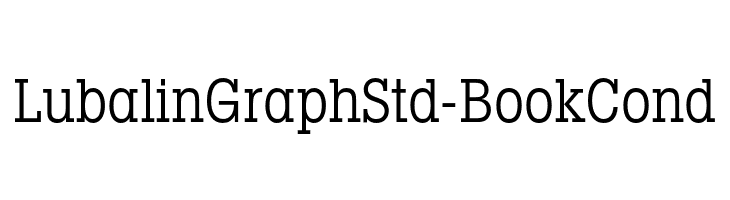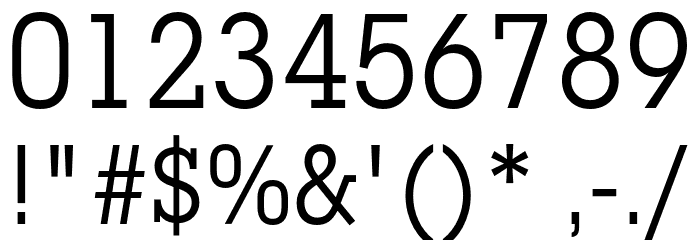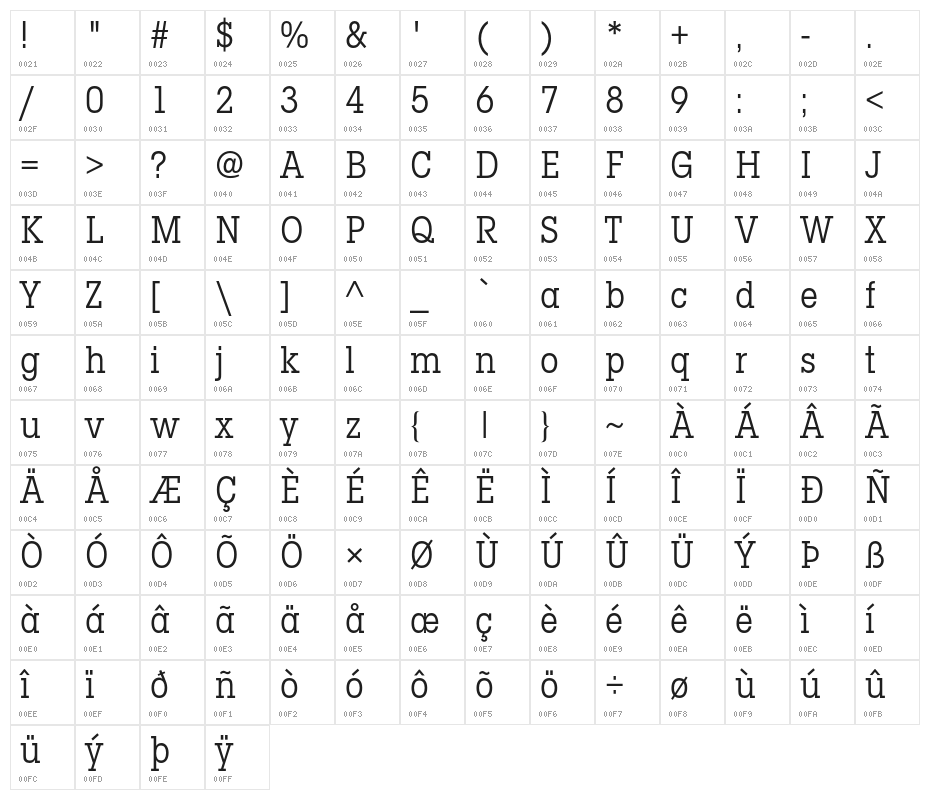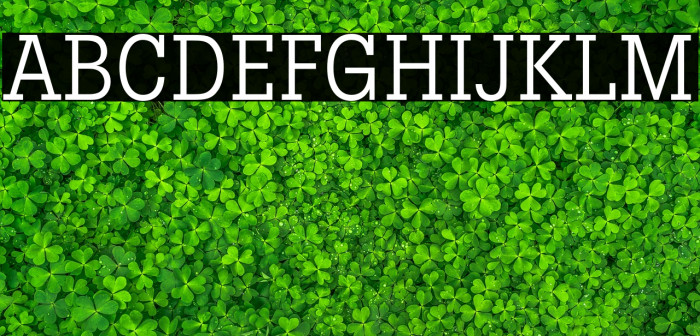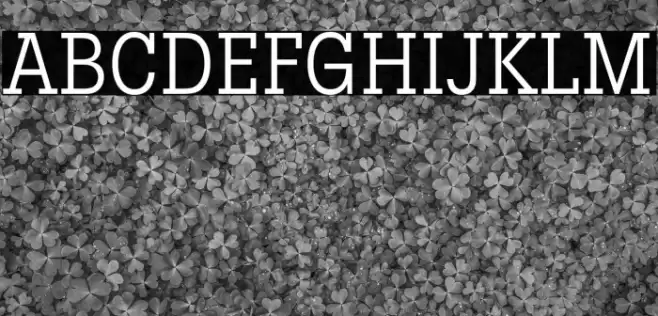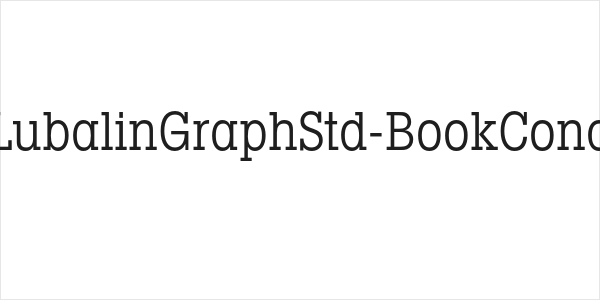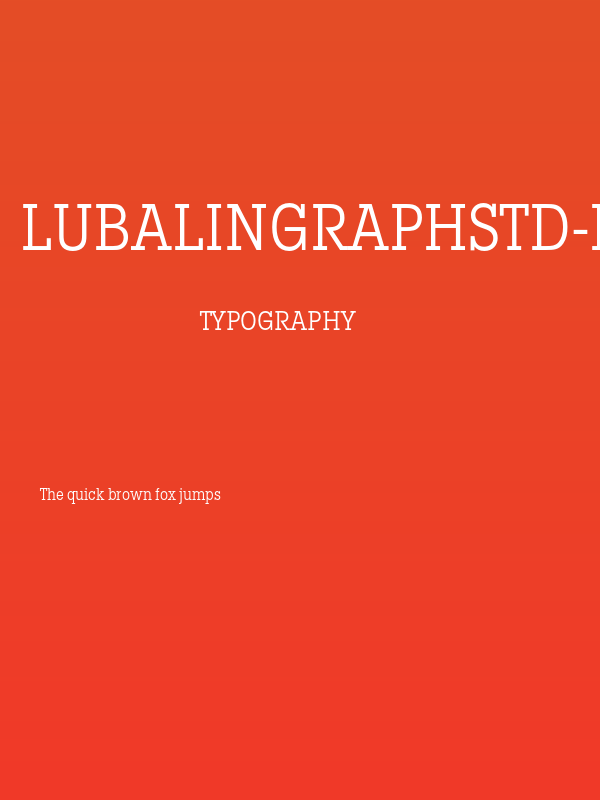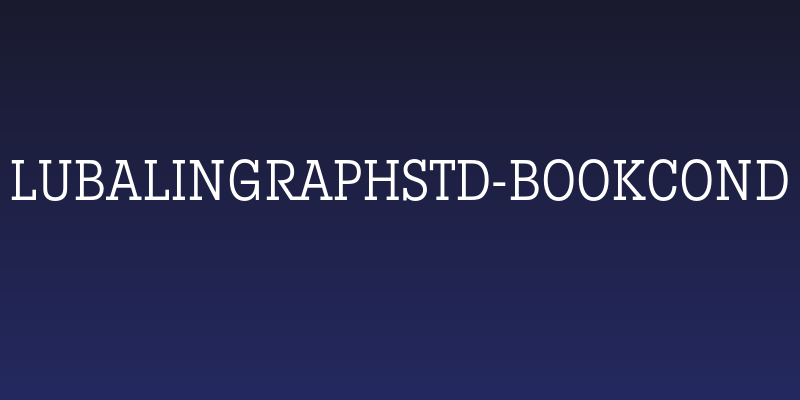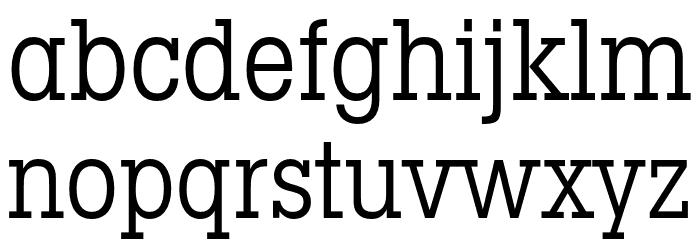
LubalinGraphStd-BookCond Font
LubalinGraphStd-BookCond Description
This font features a clean and structured design with a geometric slab serif style. The characters are well-defined with a consistent stroke weight, providing a balanced and harmonious appearance. The uppercase letters exhibit a strong presence, while the lowercase letters maintain readability with their open counters and clear forms. The numerals are straightforward and align well with the overall aesthetic. Special characters are distinct and integrate seamlessly with the rest of the character set. The font's condensed width allows for efficient use of space, making it suitable for various design applications.
| Proposed Projects | Ideal for editorial design, branding, advertising, and any project requiring a modern yet classic touch. |